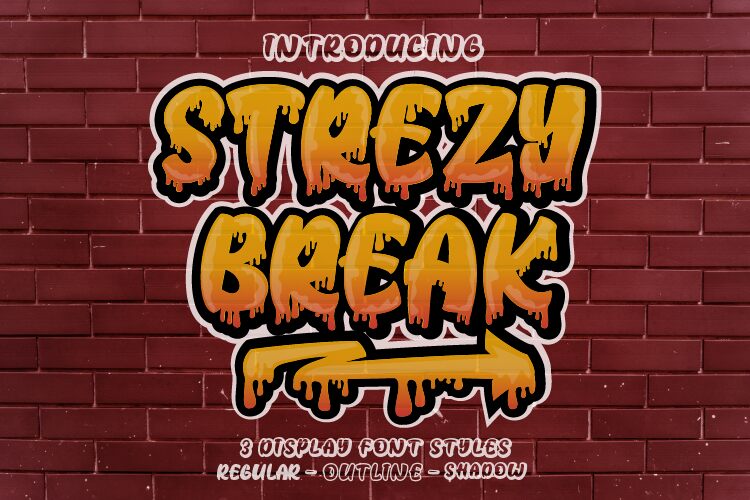
Strezy Break Shadow
Strezy Break Shadow font by Rvandtype is a free bold graffiti display font built around a thick, inky drop shadow that reads like a ready-made sticker. Its bubbly, high-contrast strokes and soft, rounded terminals create a playful bounce, while the dense black shadow locks letters together into a punchy, wall-to-poster silhouette. Part of the Strezy Break family, this Shadow cut turns even short words into loud, tactile marks.
Using Strezy Break Shadow, headlines pop on streetwear logos, hip‑hop flyers, food truck branding, YouTube thumbnails, album covers, and sticker packs. The tight rhythm and generous outlines hold up at big sizes and on busy backgrounds, so color fills and gradients stay crisp. Pair this free font with a narrow, neutral sans for small text, or keep the attitude loud with all caps and wide tracking.